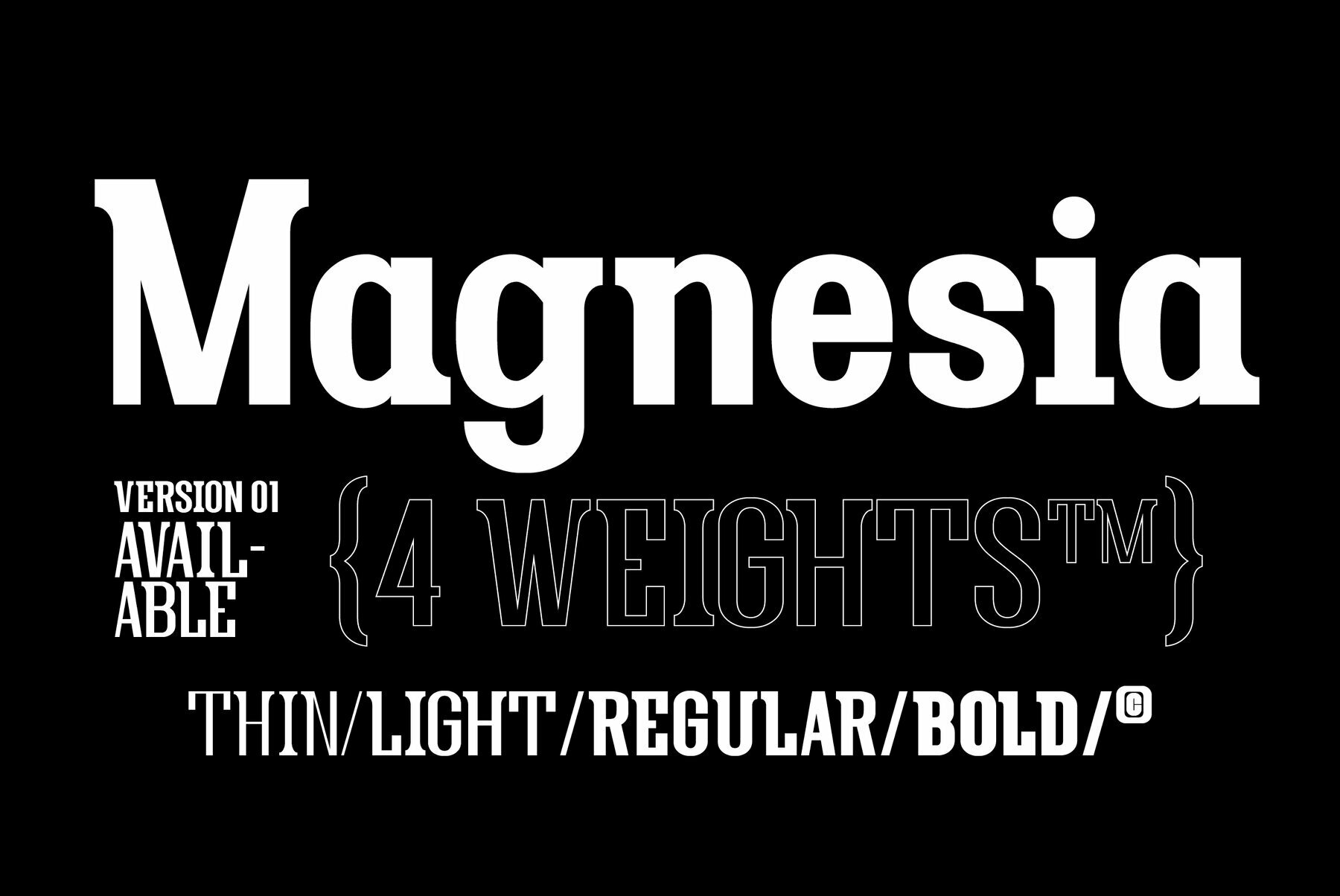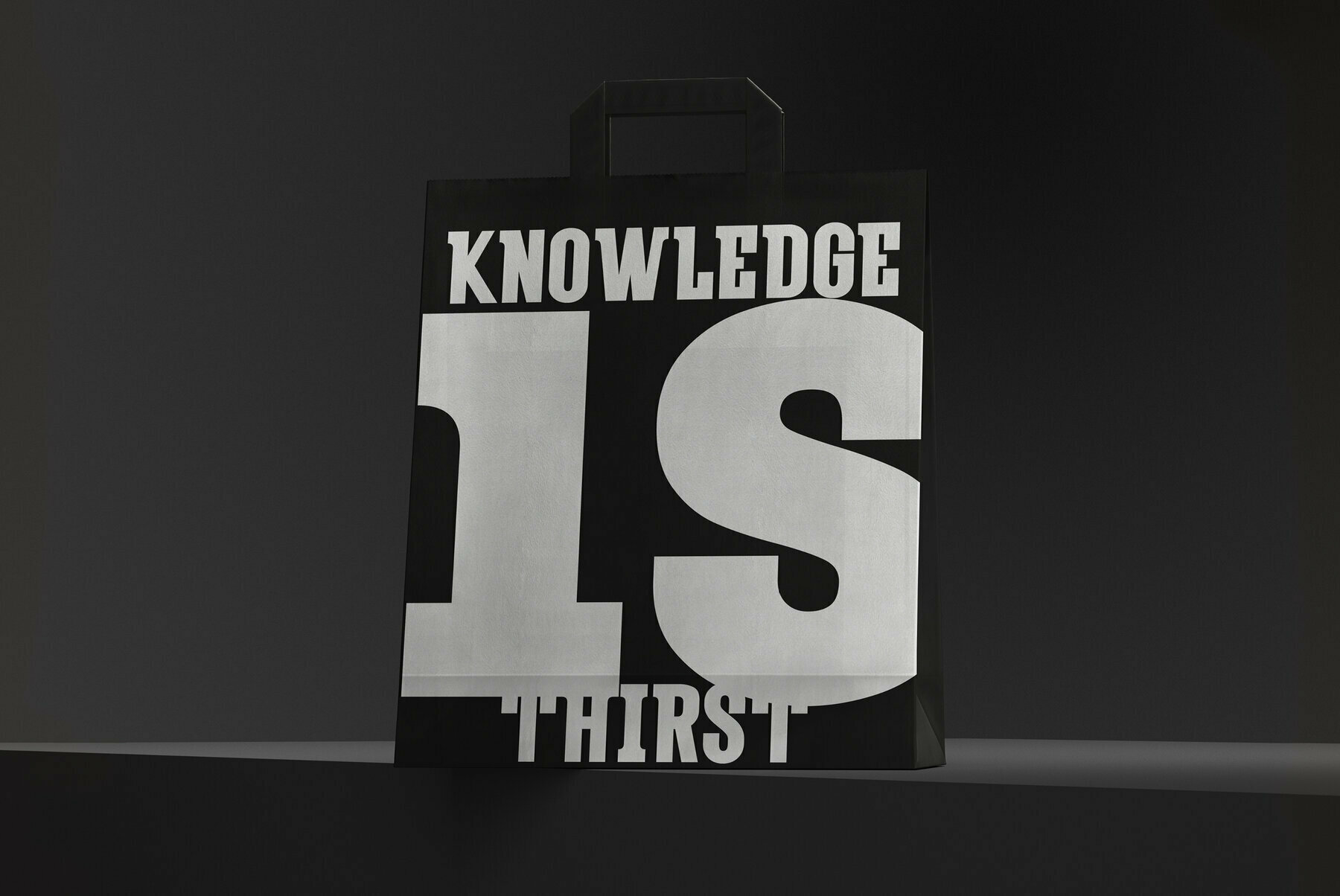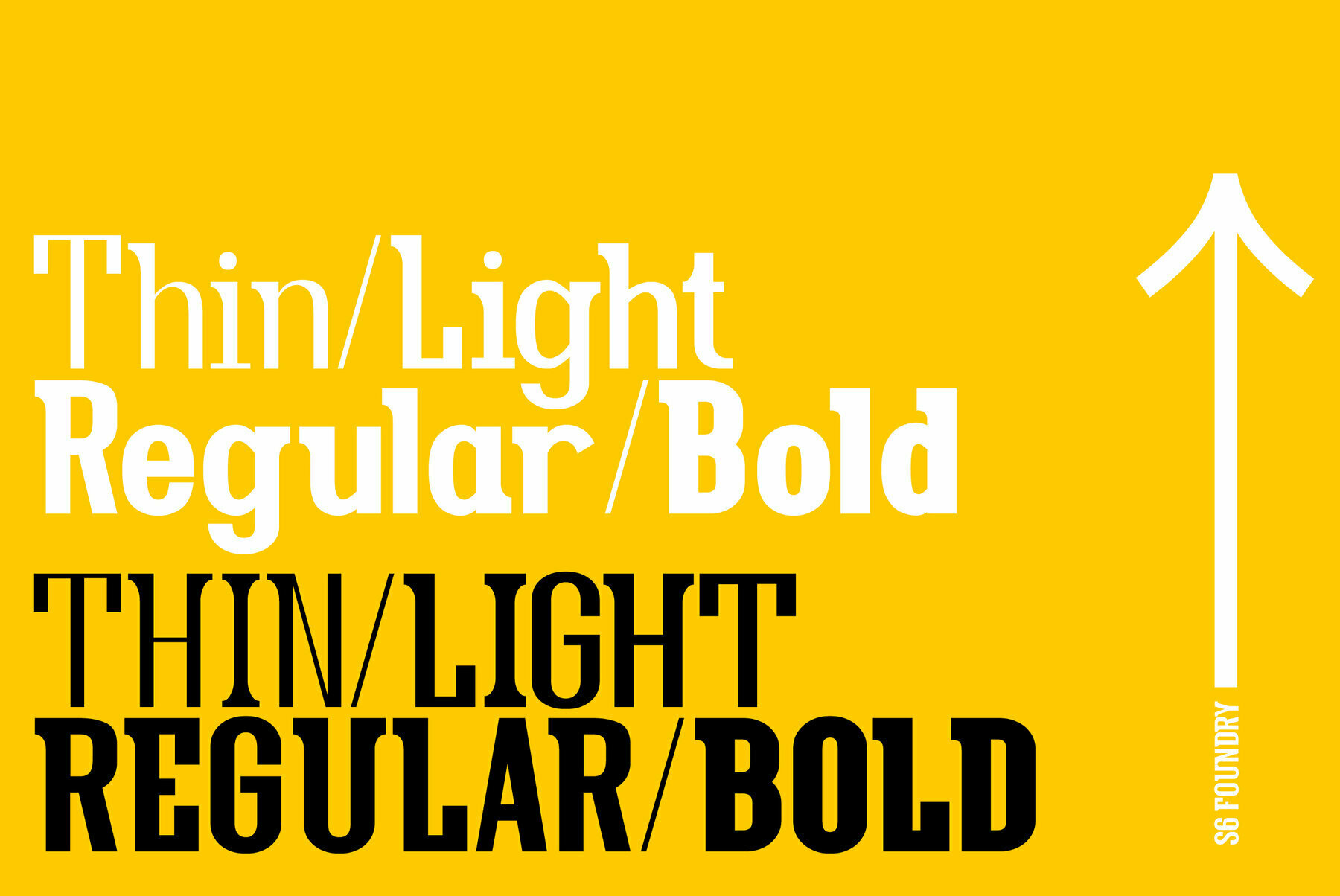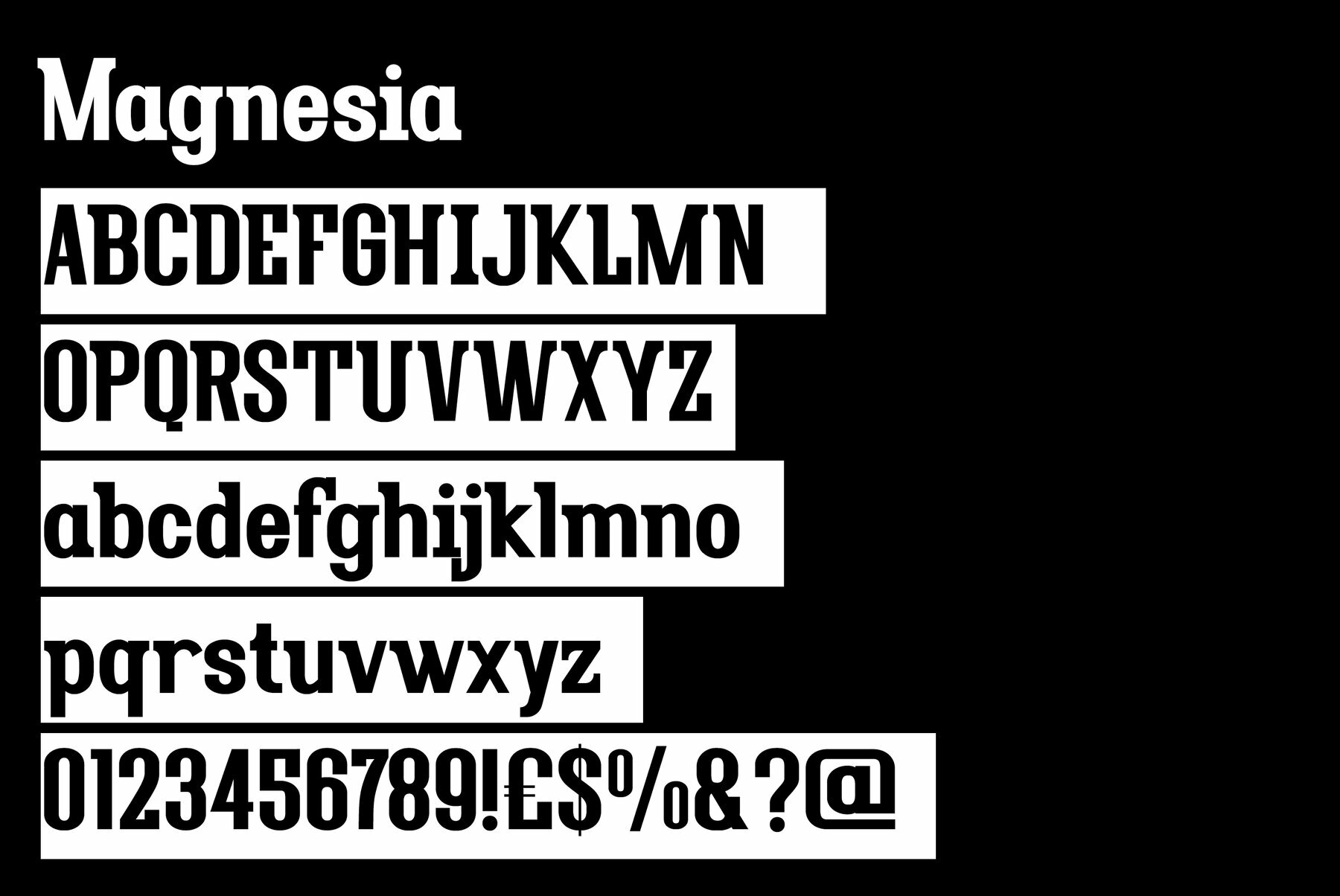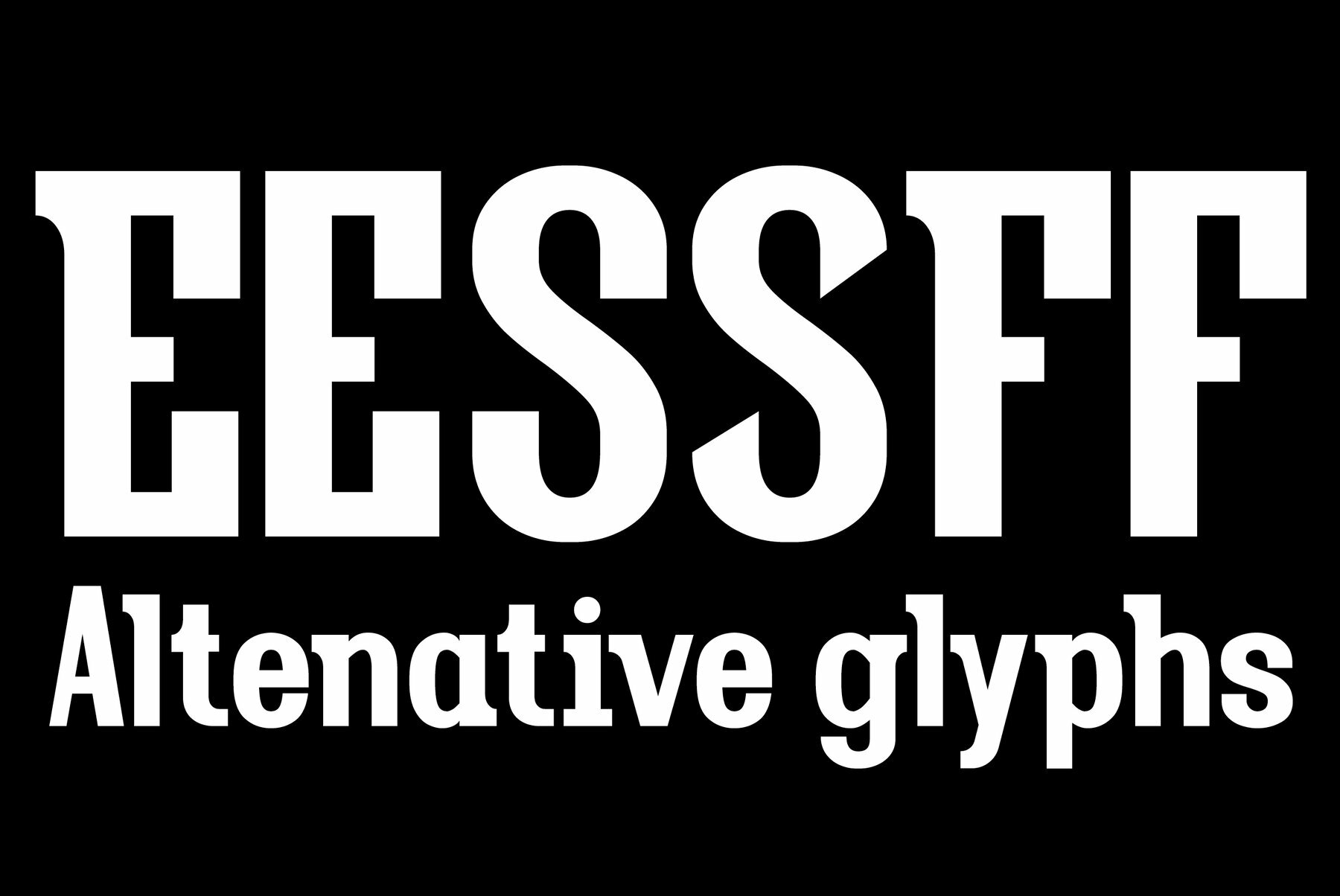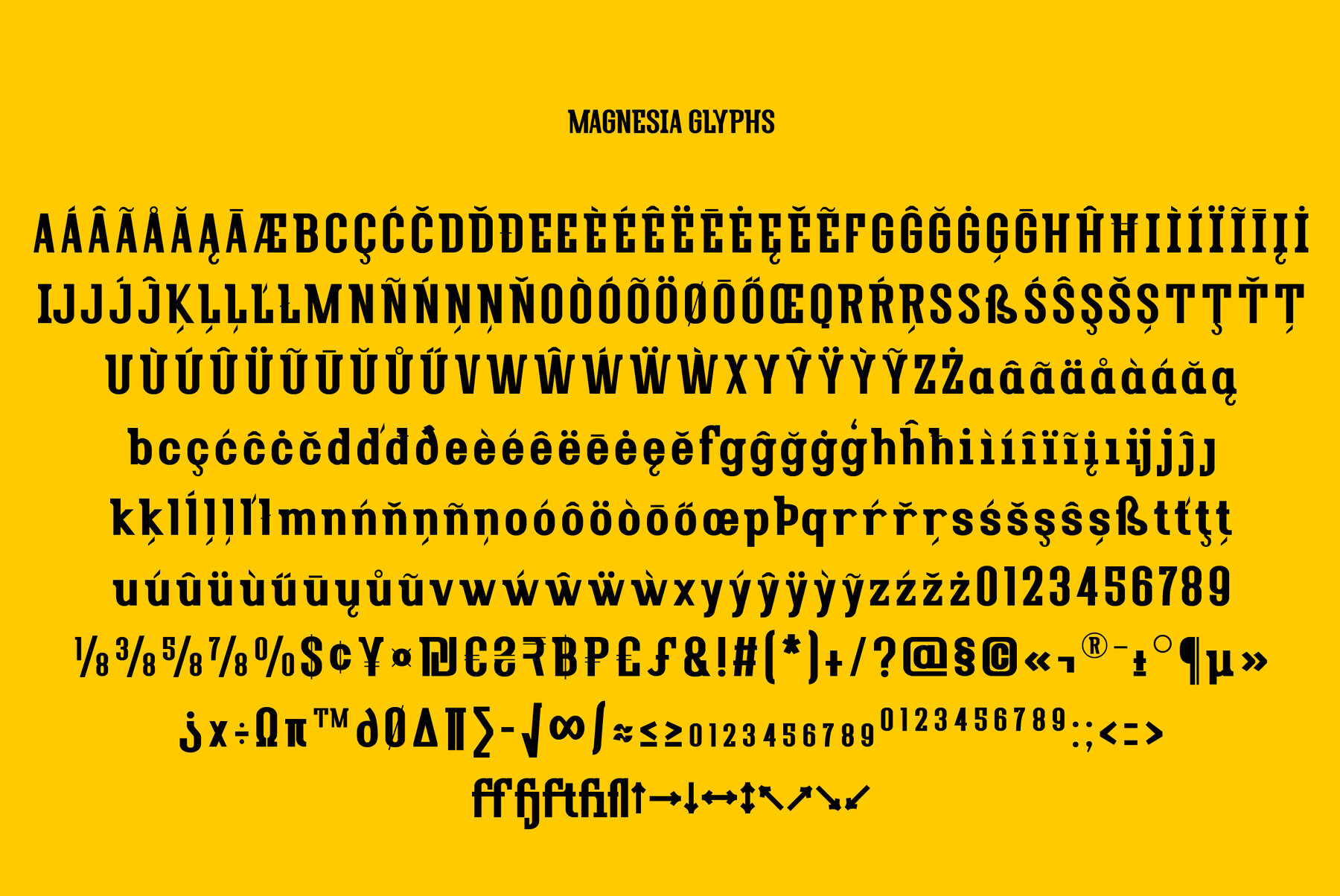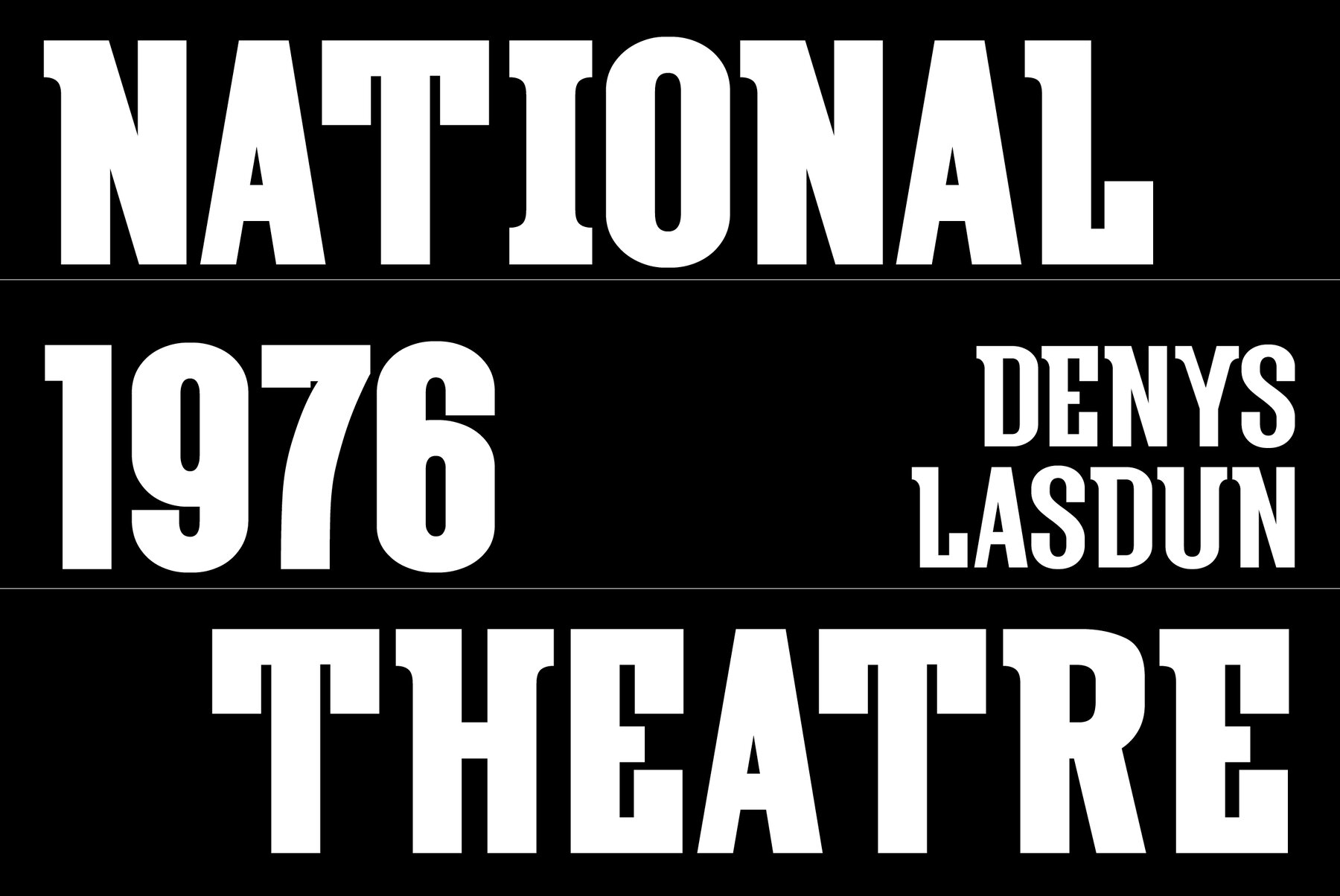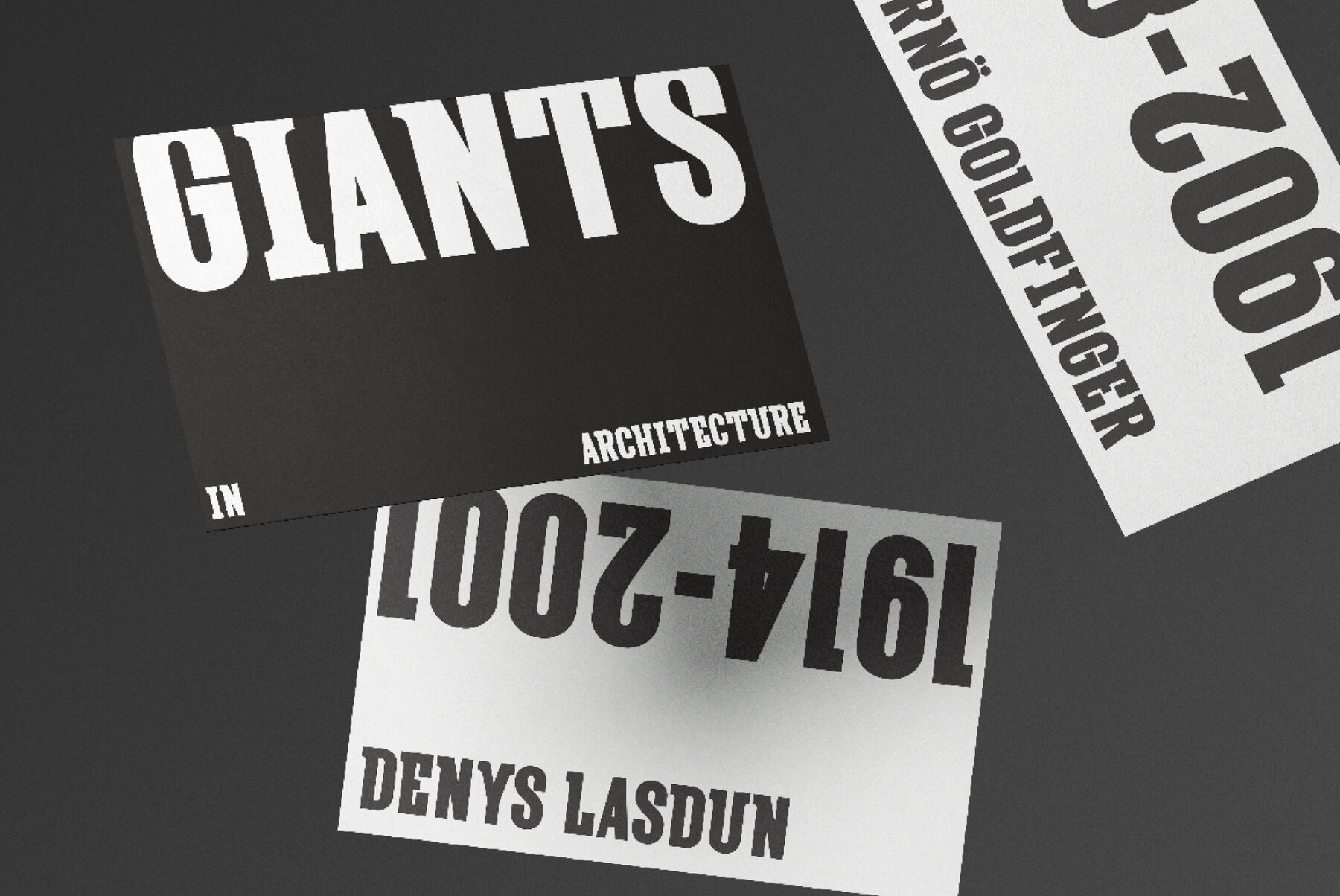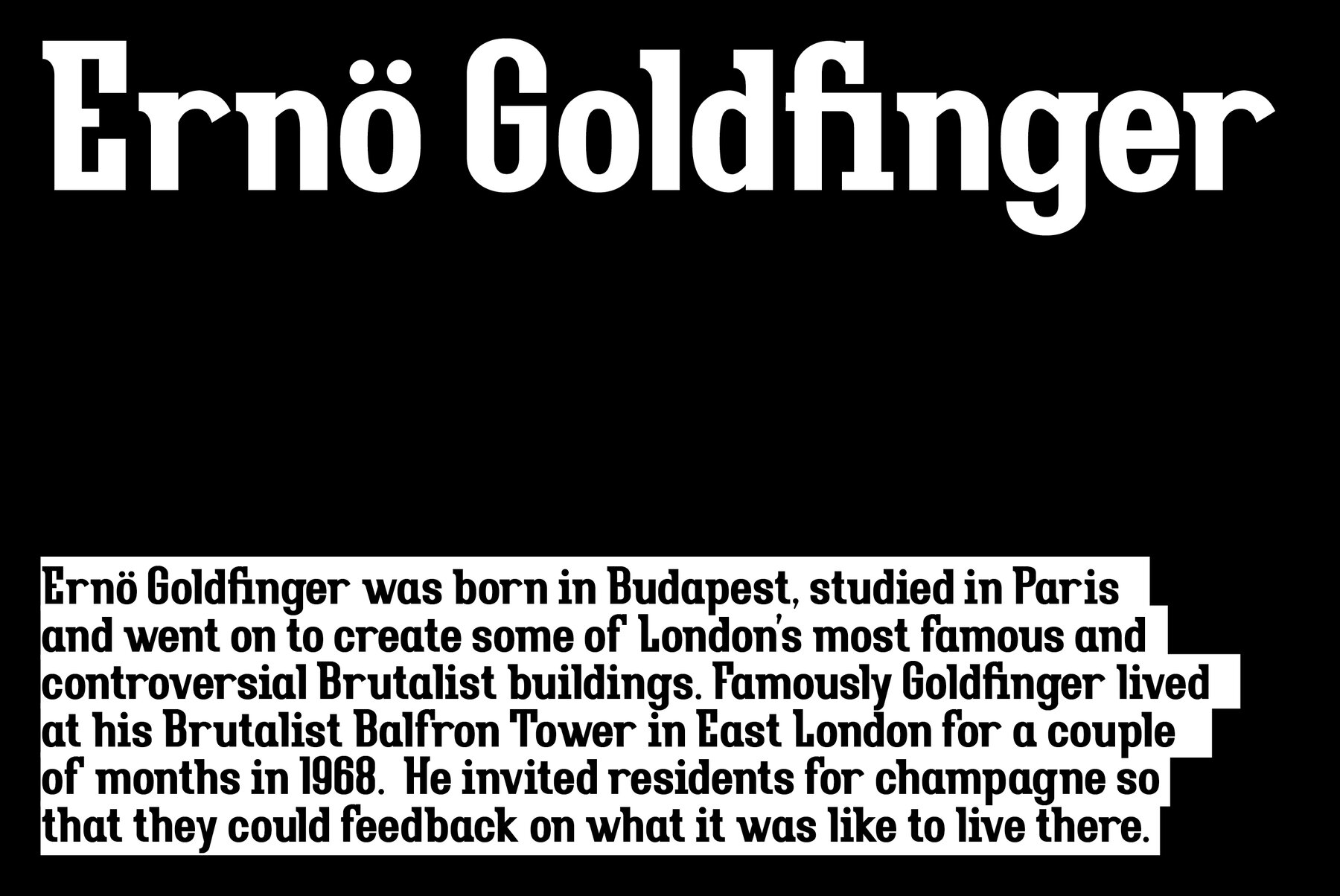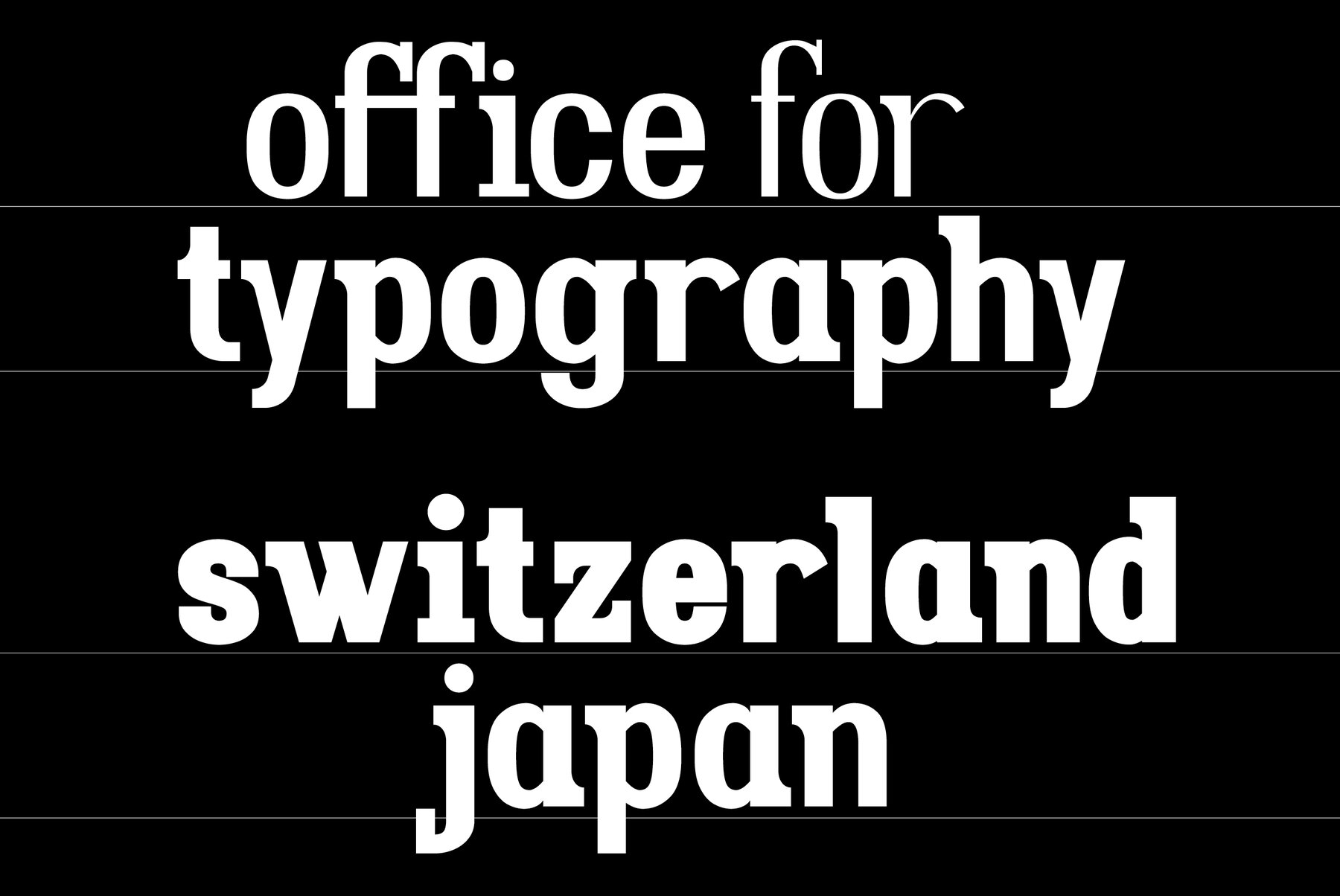
Magnesia Sf is the perfect typeface to use in any project that requires an edgy look. It has 4 styles, supports multiple languages and will make your designs stand out from other fonts on display or print!